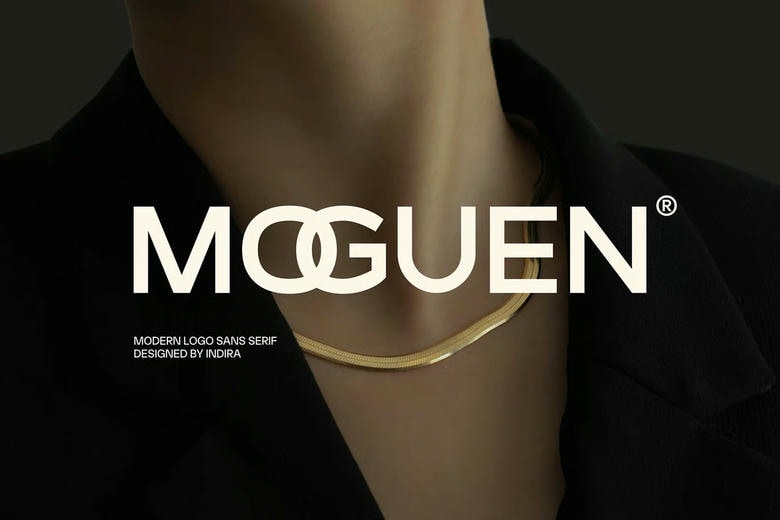
Moguen Font
Moguen Font is a modern, elegant display font that gives any logo or brand a refined, minimal look. Its bold, clean letters make a strong and sophisticated impression, which works well for fashion and corporate design.
Moguen has balanced proportions and sleek details that give it a timeless style. It’s a reliable choice for designers who want a professional, high-end look.
Moguen is versatile and works well in intro layouts, editorial designs, and premium branding projects. Its bold style makes it clear and easy to read, while still standing out in both digital and print formats. For brands that want a modern look, Moguen offers a polished and confident typographic choice.
Moguen Sans Serif Font